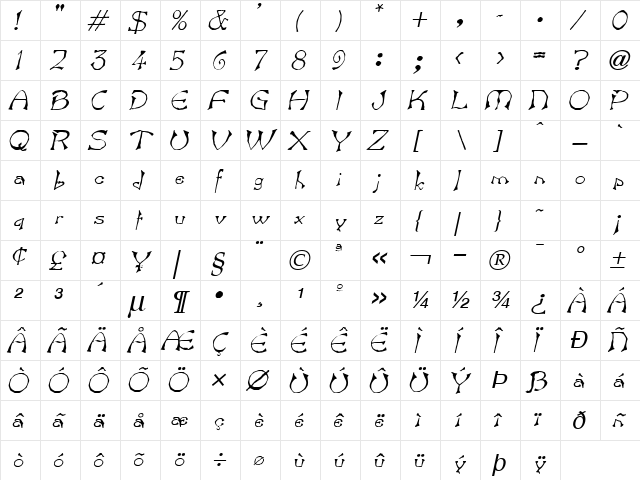
Bart Italic
Design Context for Bart Typeface
Bart is a composed and adaptable typeface that performs quietly and consistently across a wide range of design contexts. The slanted form adds forward momentum and visual energy.
Pro Tip: Try Bart for annotation and caption copy alongside an upright companion — the contrast in angle creates a dynamic but ordered typographic system.